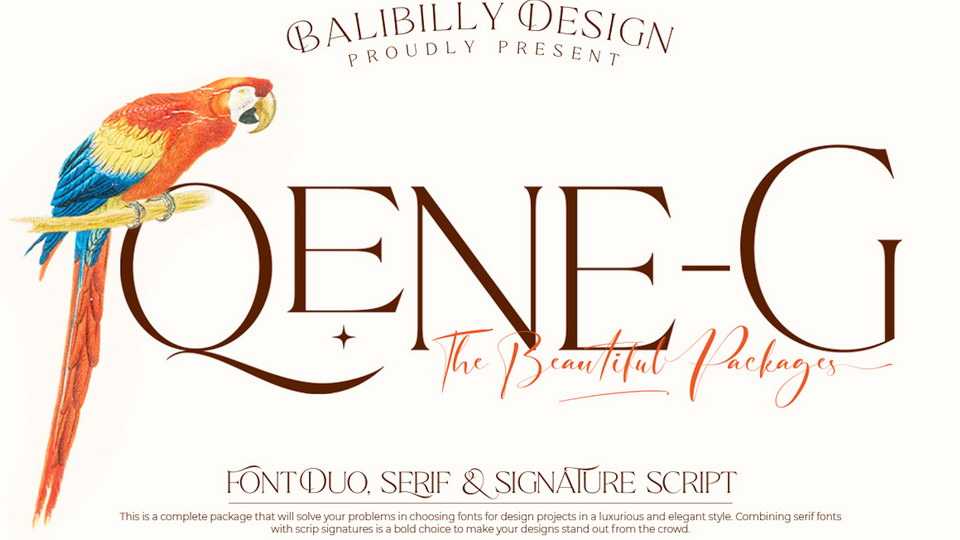
Download Qene-G font, a decorative serif typeface based on a problem to combining typefaces in typographic art. A careful approach makes Qene-G to give a luxurious and elegant taste to your project.
Designer: Balibilly Design